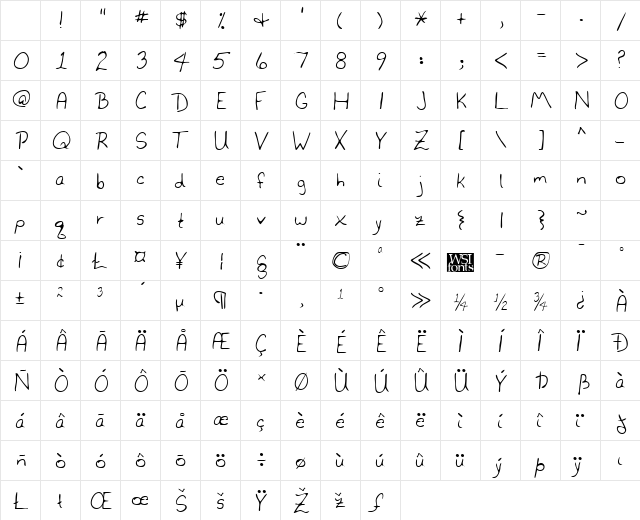
GarysHand Regular Free Font
GarysHand Regular
Design Context for GarysHand
GarysHand flows with the natural rhythm of handwritten lettering, making it ideal for designs that call for warmth and personal expression.
Font Pairing: Combine GarysHand with a simple geometric sans for maximum contrast - the tension between flowing curves and clean structure is a classic typographic pairing.
Pro Tip: Use GarysHand for short runs of text - names, titles, or taglines. Extended body copy in script faces tires the eye quickly.